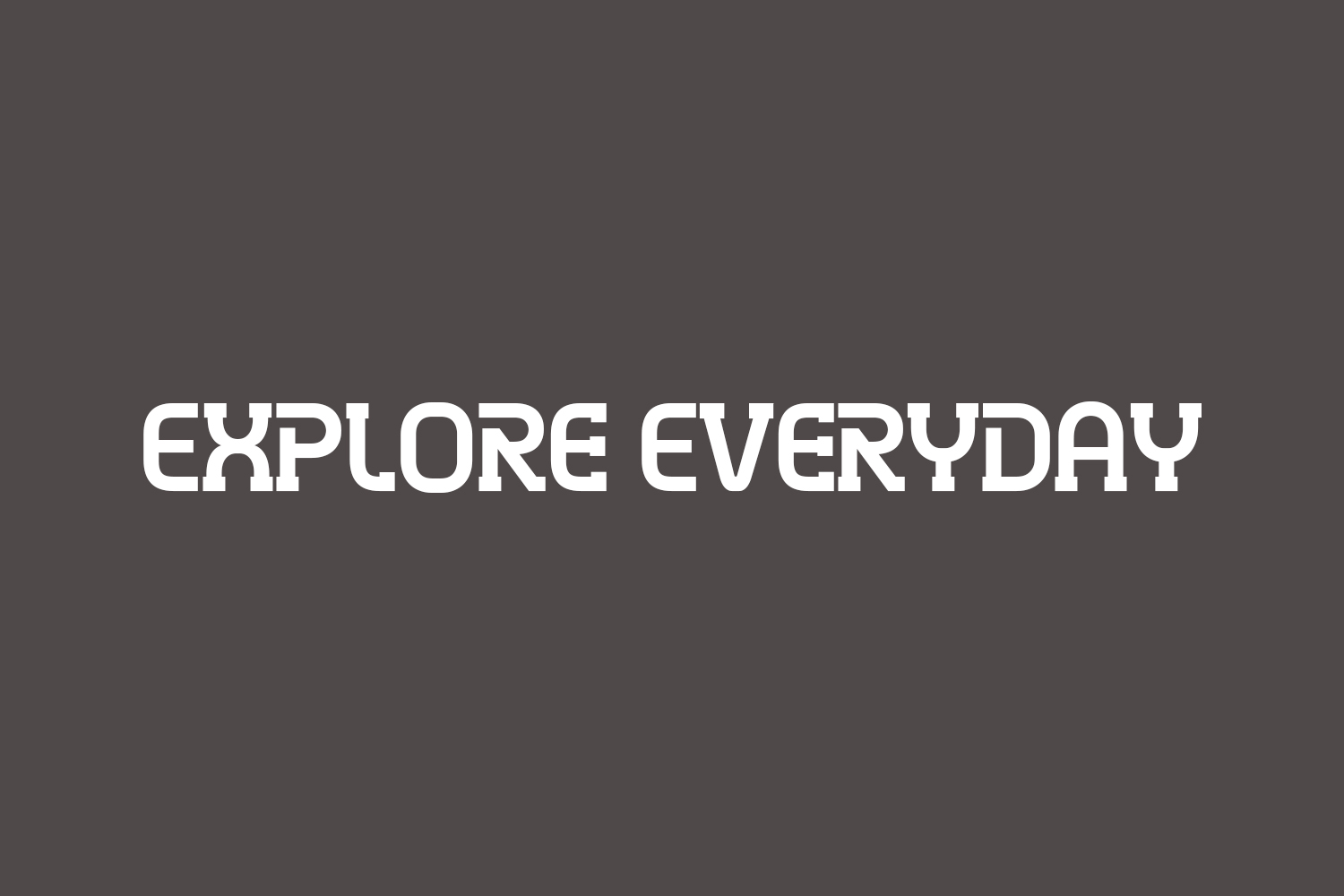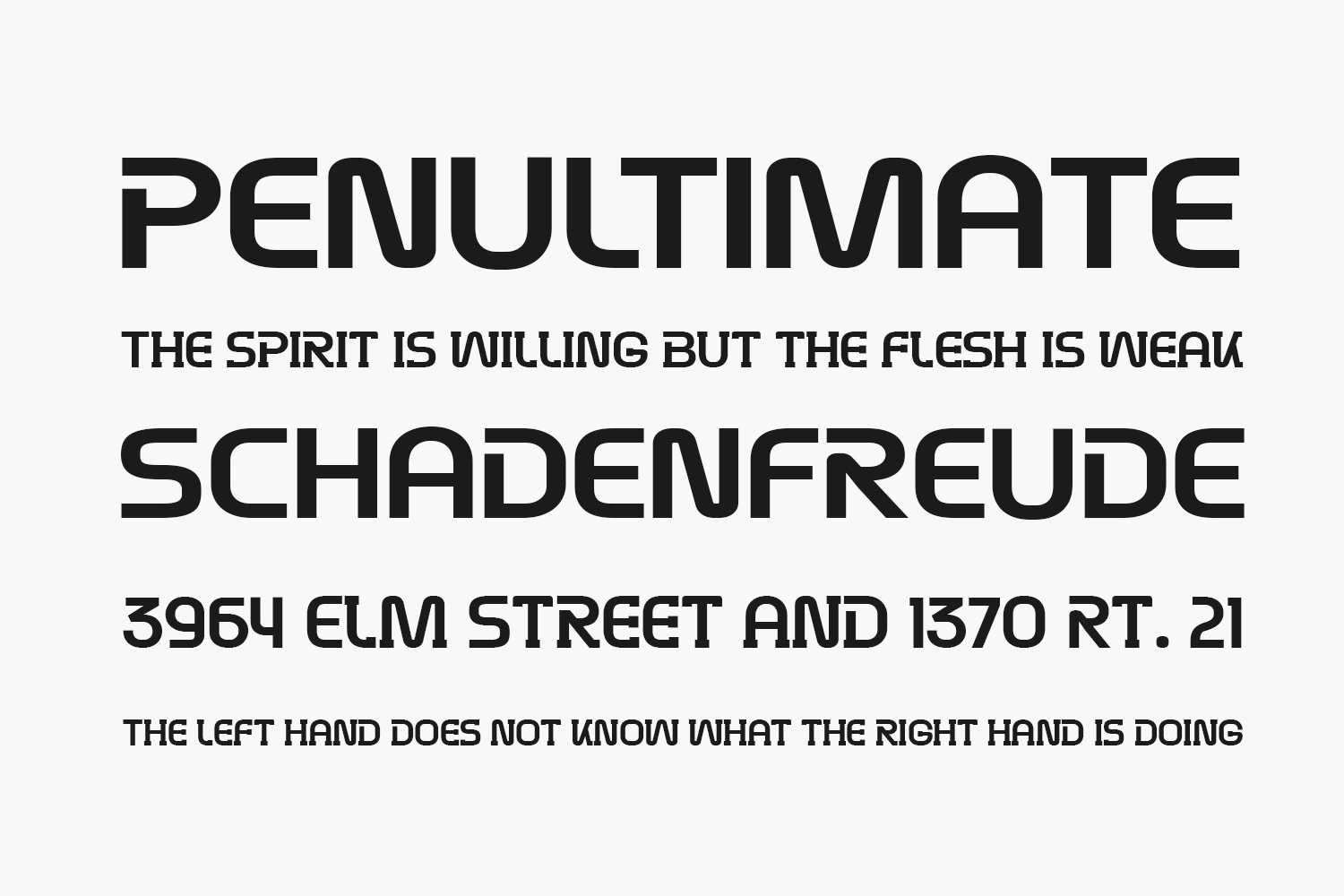
Discover Explore Everyday Free Font is a genuine display font tailored for movie posters, sports, racing designs, or any project associated with speed and power. Explore Everyday Free Font is free for personal use only. Please purchase the full version for commercial use.